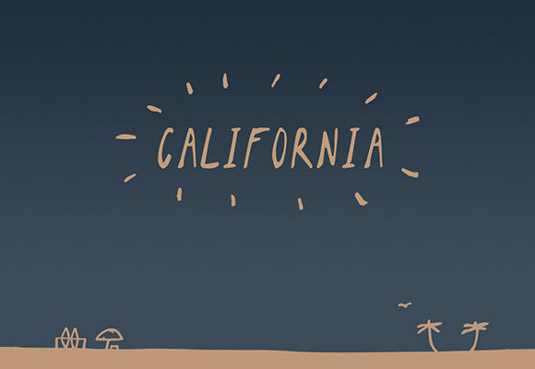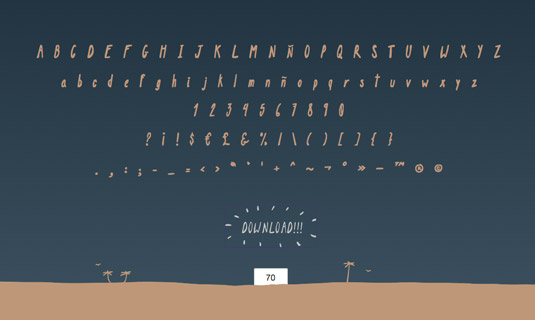
Font of the day: California Sans
California Sans by Noe Araujo
California Sans is a handwritten font, created by Mexico-based designer Noe Araujo. Available as a free download, the design includes a full case of upper and lowercase letters, numbers and various special characters.